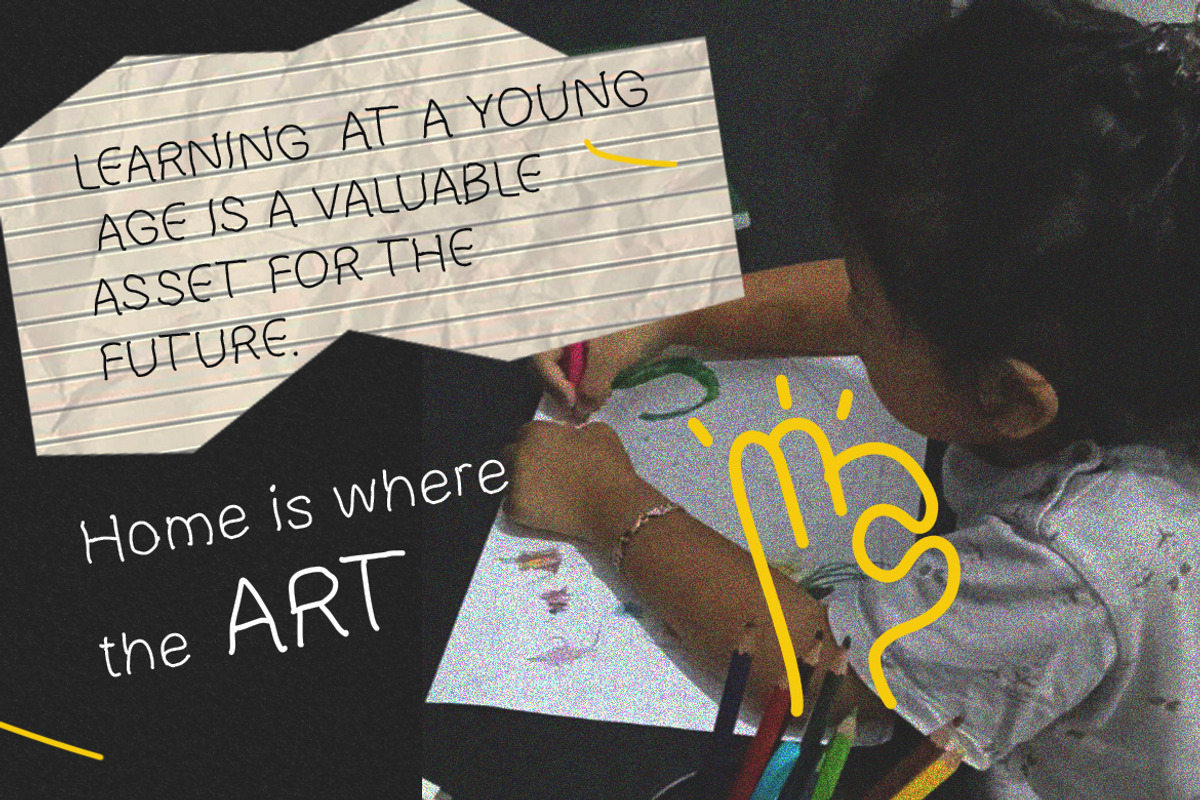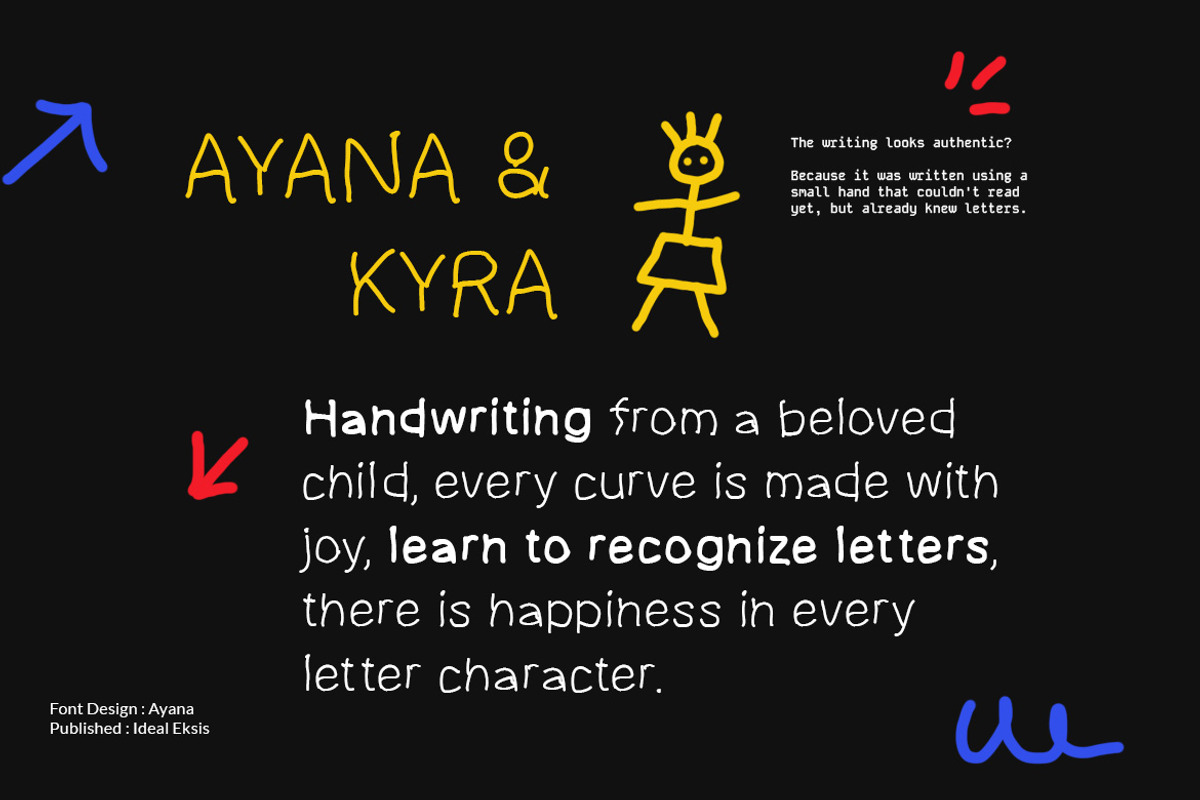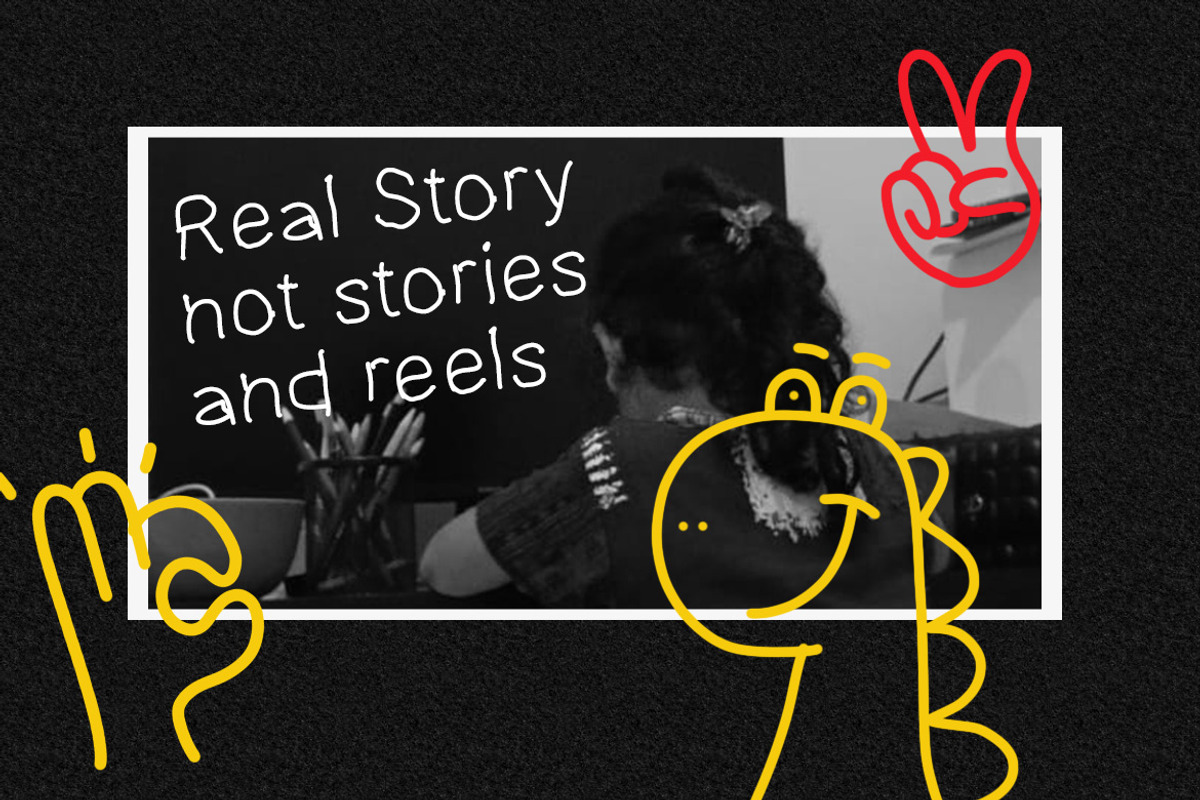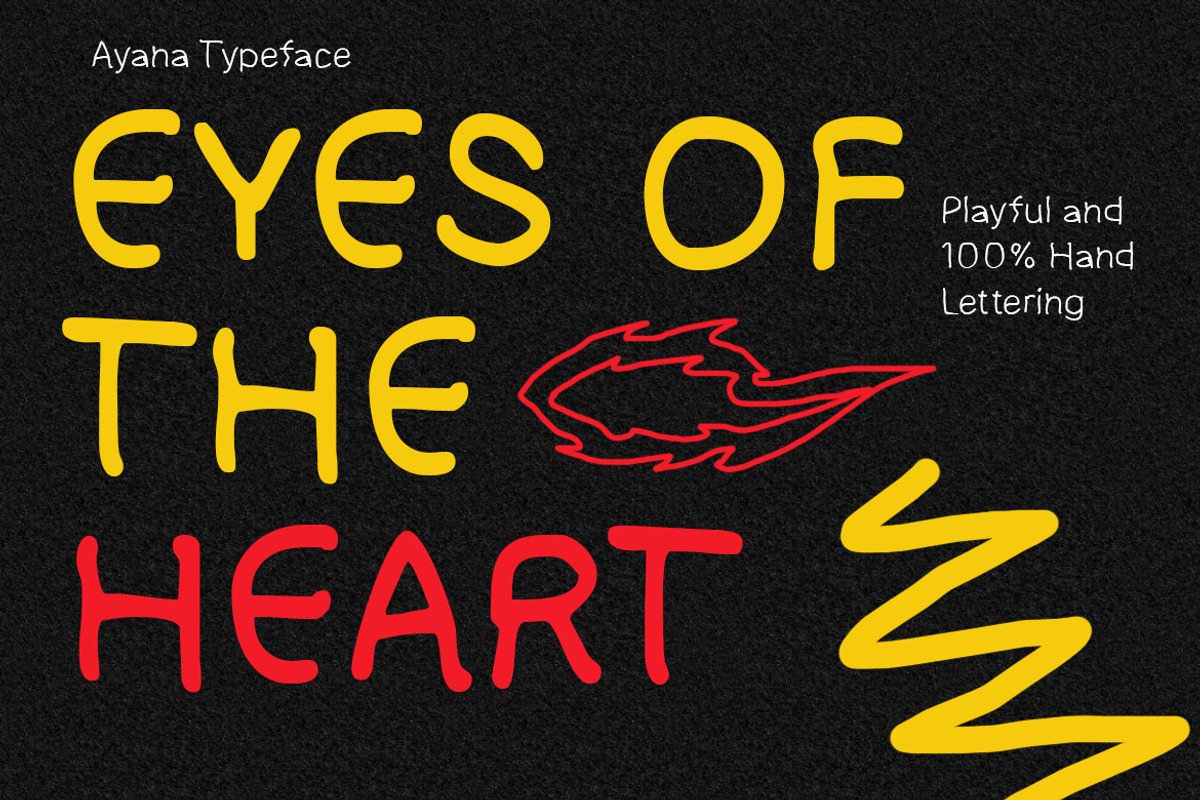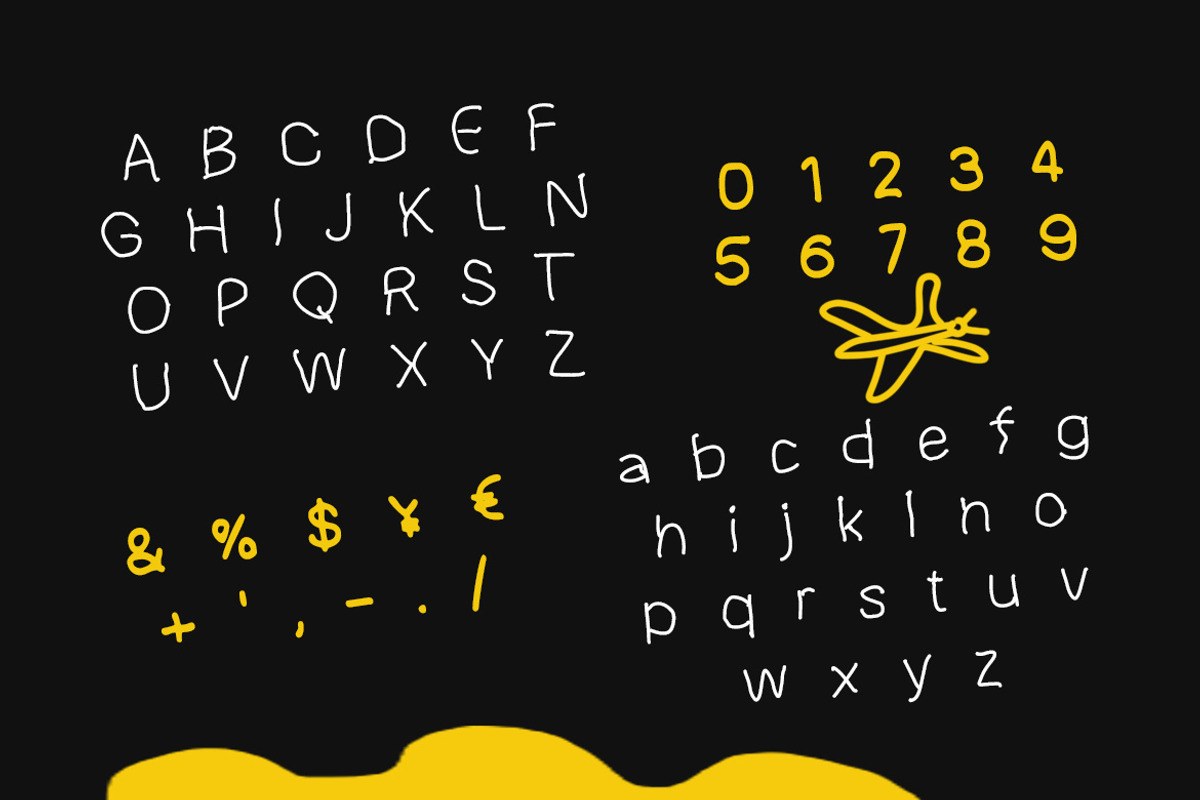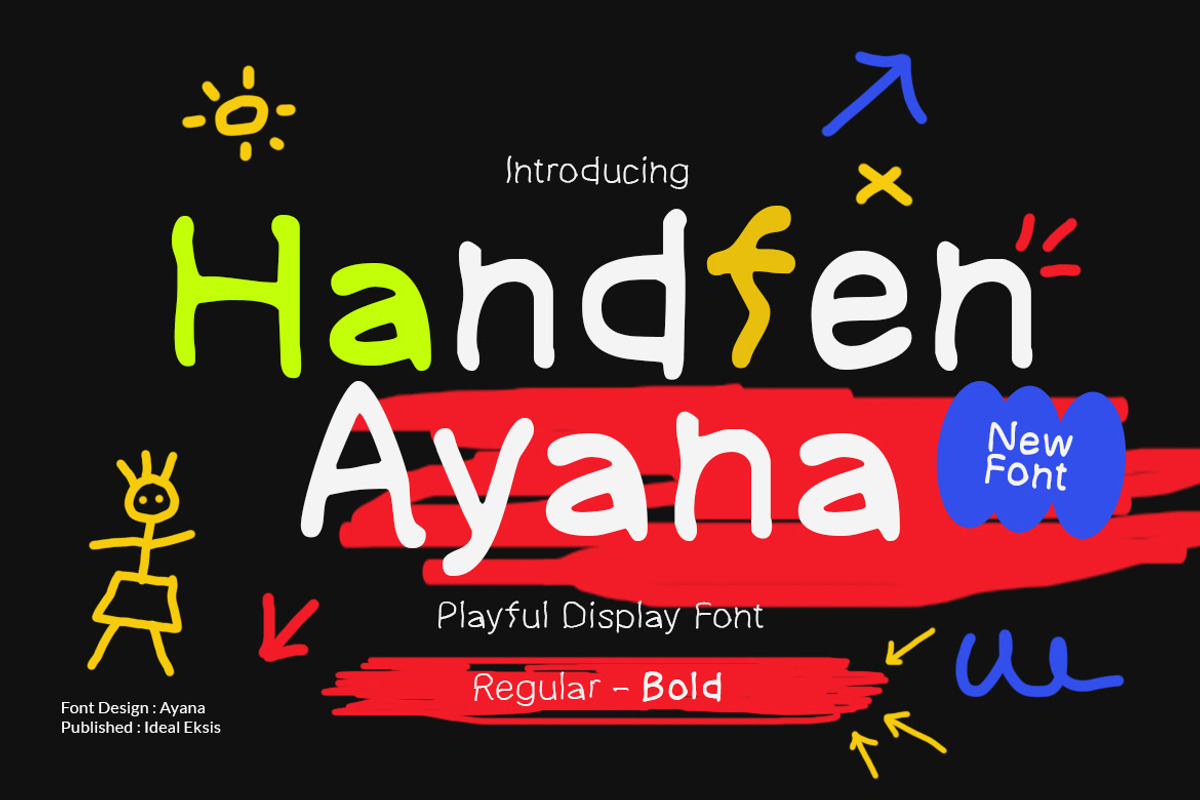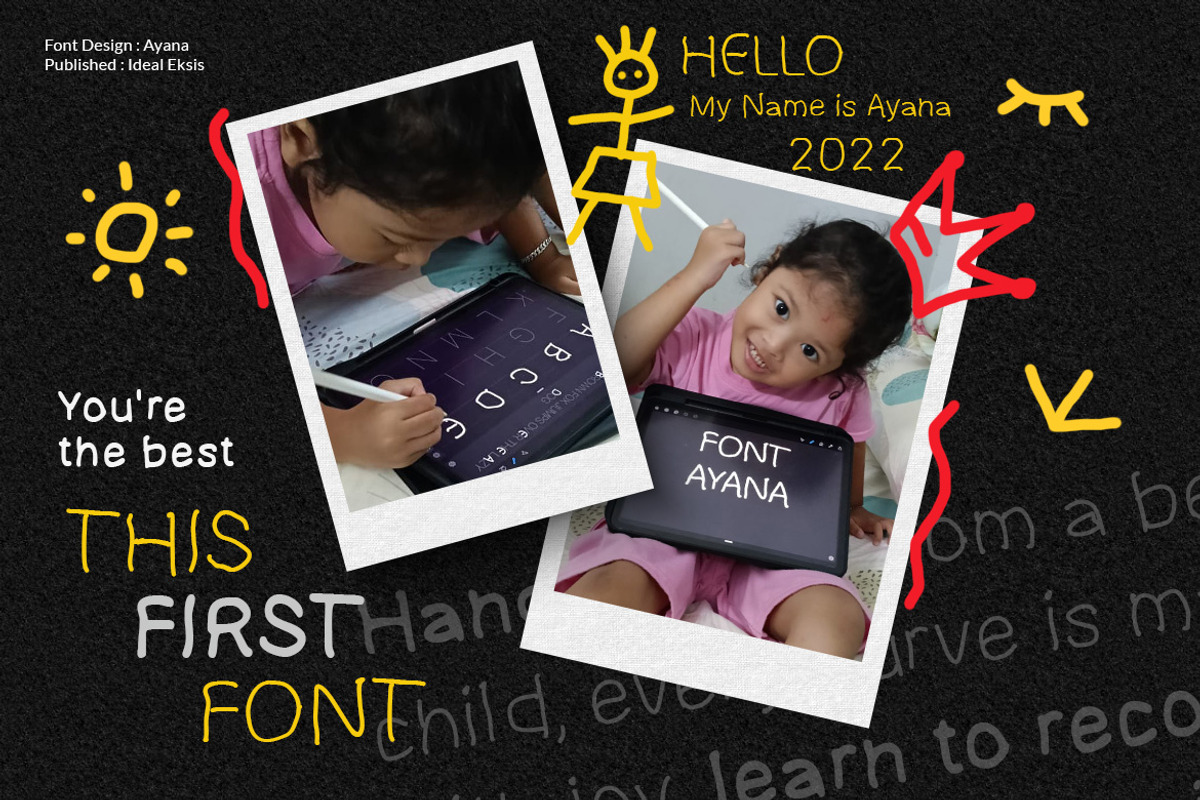
Handfen Ayana
Handfen Ayana is a whimsical, handwritten display font characterized by its irregular, organic stroke widths and rounded terminals. The letterforms exhibit a charmingly imperfect quality, reminiscent of manual ink drawing or marker strokes